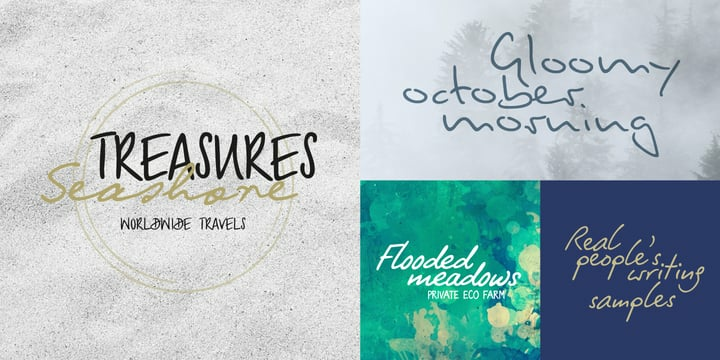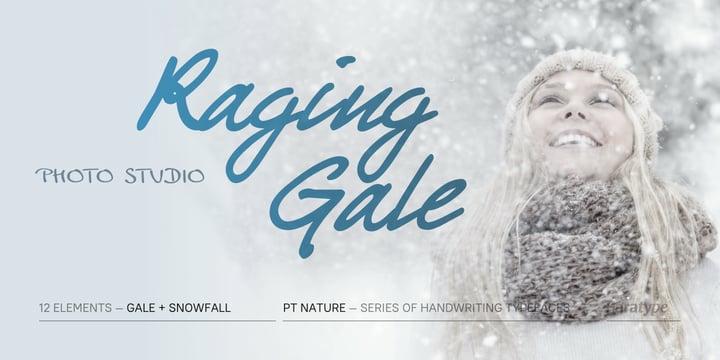
PT Nature Font Family
PT Nature Font FamilyPT Nature by Paratype is a collection of scripts based on handwriting of real people. Text set in PT Nature looks genuine and human. The fonts are a great fit for advertisement and packaging designs as well as for informal communications. PT Nature was created by Gennady Fridman and Isabella Chaeva with help from the Paratype design team.